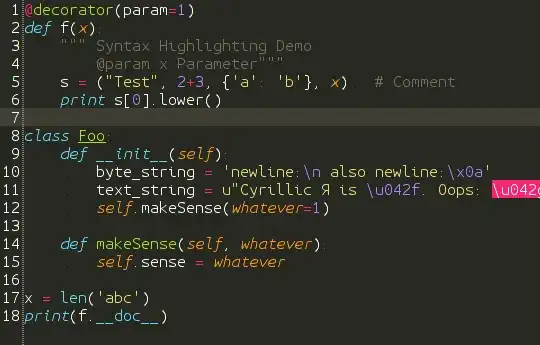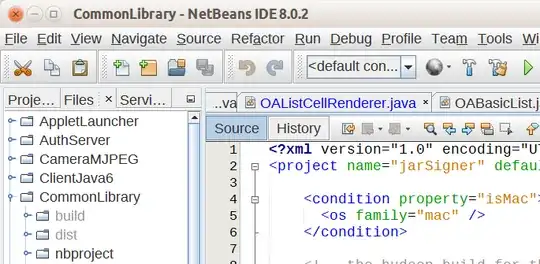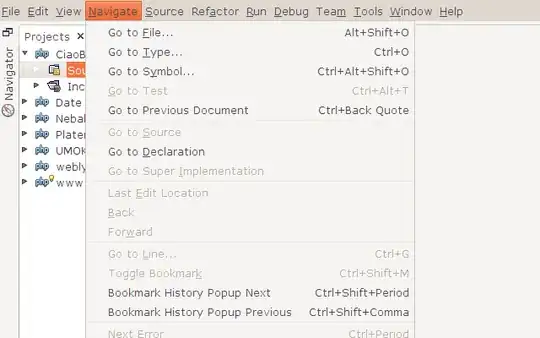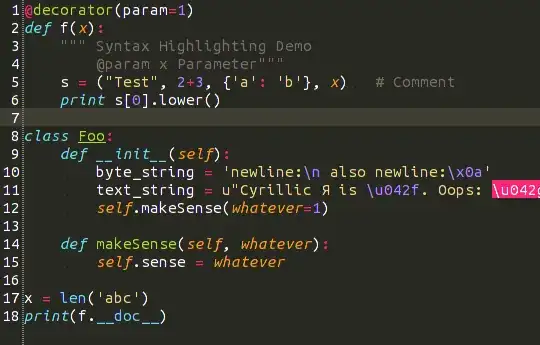
I'm having problems getting the Netbeans font to look nice, this has been a problem ever since I tried Ubuntu ~8. For some reason fonts look like they're not getting subpixel smoothing in Netbeans only, for the rest of the applications they look perfect.
Look at how ugly the screenshot is:
It's not just the code area but every font in the application looks this way. I was looking around and apparently adding the following line to the .bashrc file should fix the issue but in my case it didn't:
It think it might only affect Java based applications, but I haven't been able to test another Java app to check the fonts out.
Does anyone know what can I do to fix this? How can I make Netbeans use the system font?
As has been stated in the comments, this is a problem with Java Swing apps on Linux. Swing does use Gnome's font smoothing settings (deactivated, greyscale or subpixel) - it disregards the hinting settings though. It always uses full hinting, and if you're running Ubuntu with little or no font hinting (as most people do since little hinting is the default setting) this will make the font appear significantly different than in other applications. SWT applications like Eclipse are fine, but if you like Netbeans this isn't gonna help you.
Caveat: For the following workaround I'm only talking about the editor font, because in an IDE that's what's important to me. You could also apply it to the menu fonts etc, but that might be a little over the top.
The only usable solution I found here : use Fontforge to edit your editor font of choice and remove all hinting information from the font itself, then save it as a new font and use that in Netbeans.
No, not perfect and yes, a bit of a hassle, but still a world of difference. Hope that helps.
at the end of the default_options string in the file netbeans.config. You can find it in $NETBEANS_PATH/etc/ folder. Make your application font smaller from system preferences.
The anti-aliasing of the fonts are not working correctly in Ubuntu Java Swing applications.
I know this is an old question, but in my quest for the same problem, I tried all the tricks here without luck. I thought I was just going to have to live with terrible text in netbeans.
Basically: Ubuntu 13.10, Netbeans (7.3), Infinality font patches to freetype, OpenJDK7, and patches to it to fix Swings dismal font handling. And it "just worked"!!!
I don't know if that is a good answer, because it may not work everywhere, but certainly - trying by switching JDK (be it OpenJDK or Oracle JDK) you may see a difference.
I was having the same issue on Mint 12. I solved it by entering the "Advanced Settings"->"Fonts" and reducing the default font from 11 to 10. I lowered all the fonts in the list to consistency.
There must be some problem with the Cantarell 11 font.